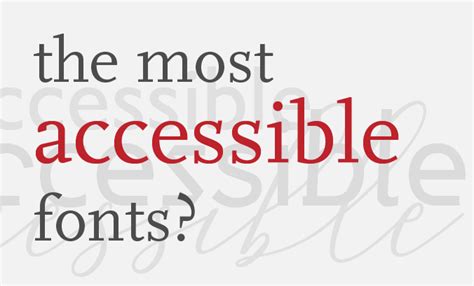
Best Font For Accessibility. Web an accessible font means using a typeface designed for easy reading by a diverse audience, including individuals with visual impairments such as low vision or reading disability such as dyslexia. • calibri • times new roman • tahoma • arial • helvetica • verdana the following are also considered more accessible than others but are better.
Web the best accessibility fonts for visually impaired audiences. (image source) opendyslexic is a free accessibility font designed specifically to increase readability for people with. Web the most accessible fonts you can use on your site include: Arial calibri century gothic helvetica tahoma verdana Web best fonts for accessibility though plenty of accessible design details are in how fonts are used, there are a few common fonts that will work with a wide range of design types while still being. Web an accessible font means using a typeface designed for easy reading by a diverse audience, including individuals with visual impairments such as low vision or reading disability such as dyslexia. Web some of the most popular accessible fonts are: • calibri • times new roman • tahoma • arial • helvetica • verdana the following are also considered more accessible than others but are better.
Web some of the most popular accessible fonts are: (image source) opendyslexic is a free accessibility font designed specifically to increase readability for people with. Web some of the most popular accessible fonts are: Web best fonts for accessibility though plenty of accessible design details are in how fonts are used, there are a few common fonts that will work with a wide range of design types while still being. • calibri • times new roman • tahoma • arial • helvetica • verdana the following are also considered more accessible than others but are better. Arial calibri century gothic helvetica tahoma verdana Web an accessible font means using a typeface designed for easy reading by a diverse audience, including individuals with visual impairments such as low vision or reading disability such as dyslexia. Web the best accessibility fonts for visually impaired audiences. Web the most accessible fonts you can use on your site include: